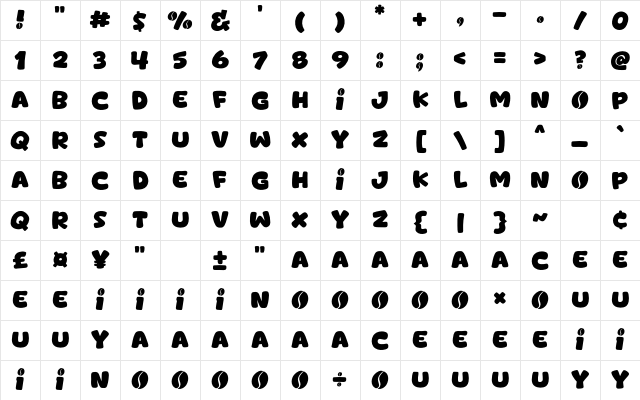
Cofeben Regular
Foundry: Khurasan
Designer: Khurasan
Design Context for Cofeben
Cofeben is a composed and adaptable typeface that performs quietly and consistently across a wide range of design contexts.